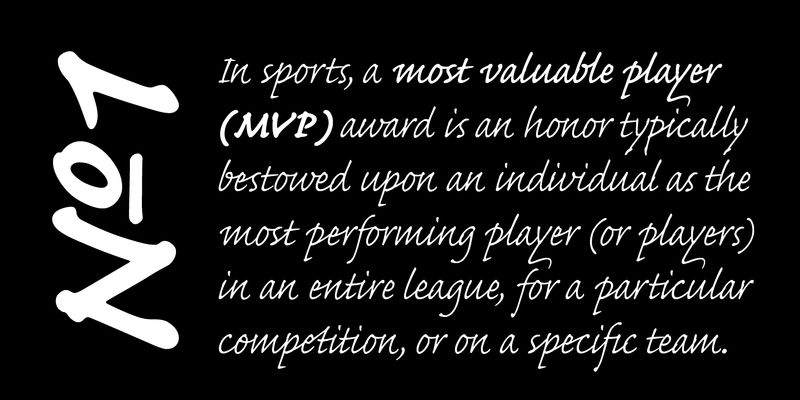
This typeface is based on the handwriting of Max Caflisch, one of the foremost graphic designers of this century. Caflisch, a teacher of graphic arts for more than three decades in Zurich, is author of several books on typography and designer of the 1952 Columna typeface. Caflisch's handwriting has a free-flowing yet disciplined character, the result of years of practice and devotion to the calligraphic arts. Designer Robert Slimbach retained the subtleties and natural letter joins of Caflisch's original handwriting while adapting it into a typographically sound and highly practical script typeface. Caflisch Script was first released in 1993, and dramatically enhanced for OpenType in 2001. Caflisch Script can be used anywhere the appearance of a fine hand is desired, as well as more sophisticated and practical situations such as display work in books and copysetting for advertisements.